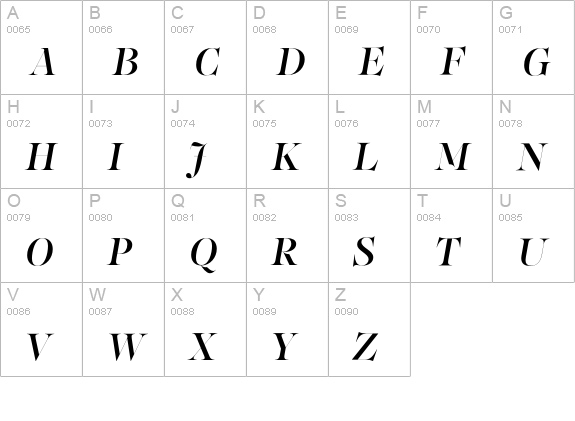
PFRegalFinessePro-MediumItalic font is a sophisticated and elegant typeface that exudes a sense of refinement and finesse. With its medium weight and italic style, this font is perfect for adding a touch of class to any design project. The graceful curves and stylish letterforms of PFRegalFinessePro-MediumItalic make it ideal for use in branding, advertising, and editorial design. And the best part is, this font is available for free download at FontsMarket.com! Whether you're a professional designer looking to elevate your work or a hobbyist in need of a high-quality font, PFRegalFinessePro-MediumItalic is a versatile choice that is sure to impress. Don't miss out on the opportunity to enhance your projects with this beautiful and freely available font.